FONT IN USED: LENIA MONO
Fern Vera Photography captures intimate moments through a soft, natural visual language—focusing on authenticity, light, and emotional presence. The work reflects a calm and thoughtful approach, where every frame feels personal and timeless.
Set in Lenia Mono, the typography introduces a structured contrast to the organic imagery—bringing clarity, rhythm, and a contemporary edge across digital presentation.
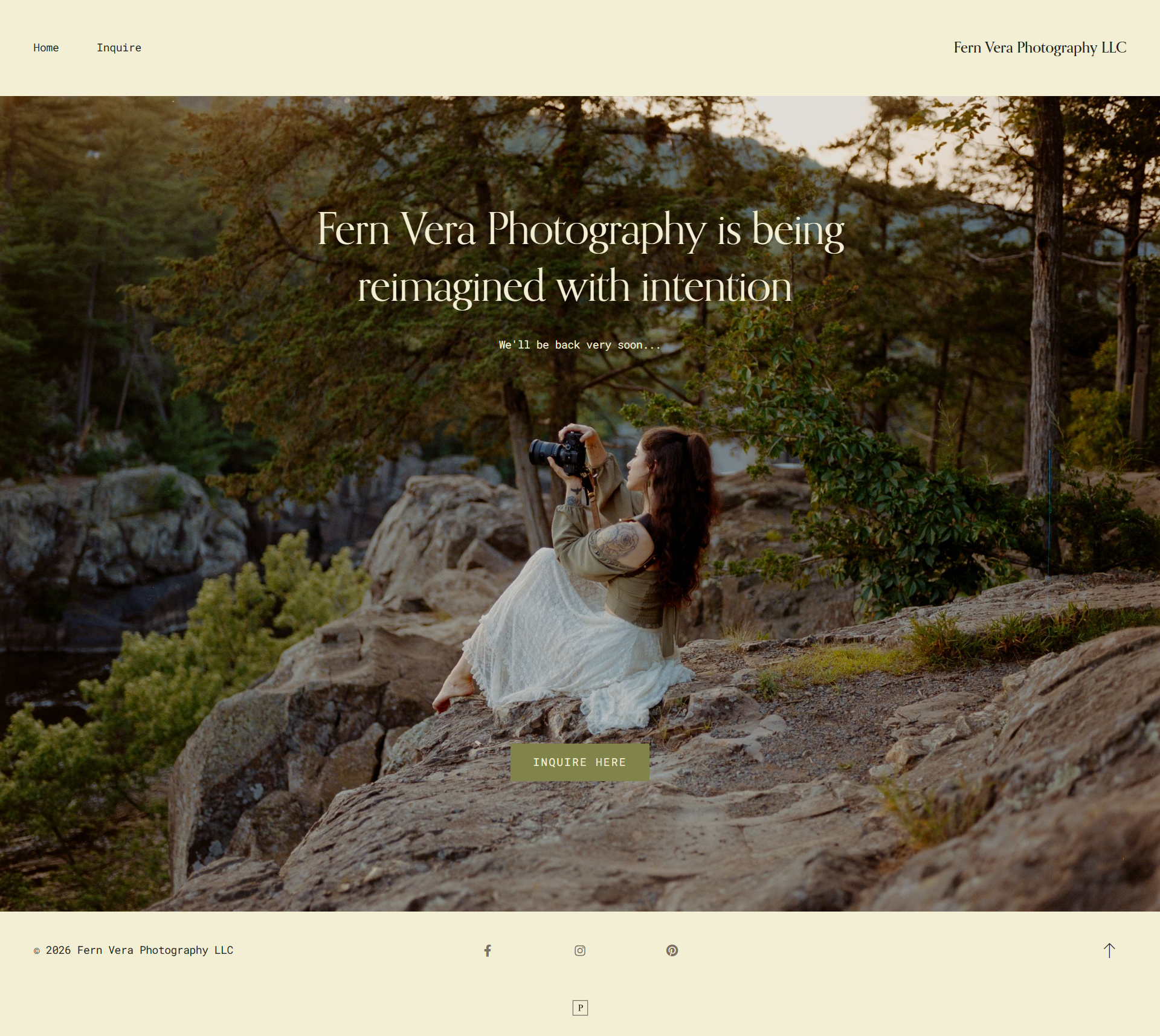
Fern Vera Photography: Website